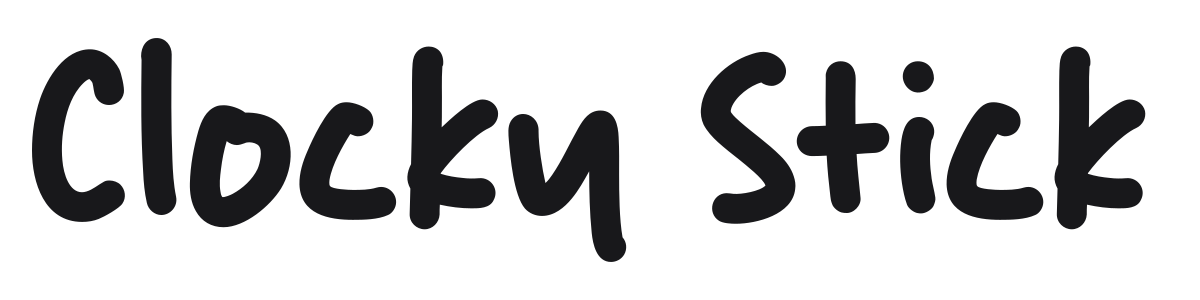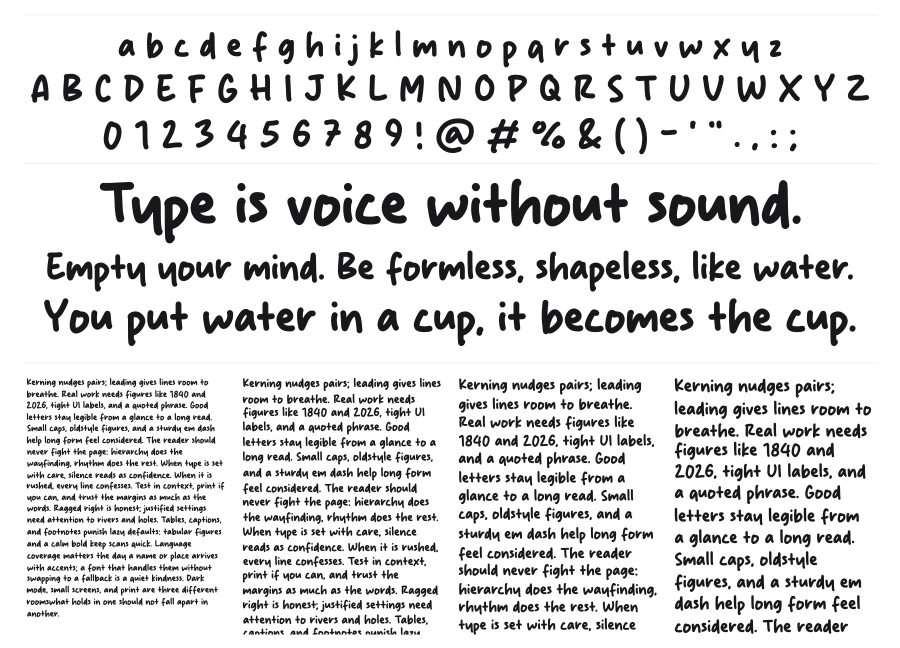
Clocky Stick
Clocky Stick is a bold casual script with thick, rounded strokes that feel like they were drawn with a chunky marker. The letters have a natural, hand-lettered looseness without losing legibility, making it feel both expressive and accessible. It brings warmth and energy to children's content, food branding, and anywhere you want type that feels human.